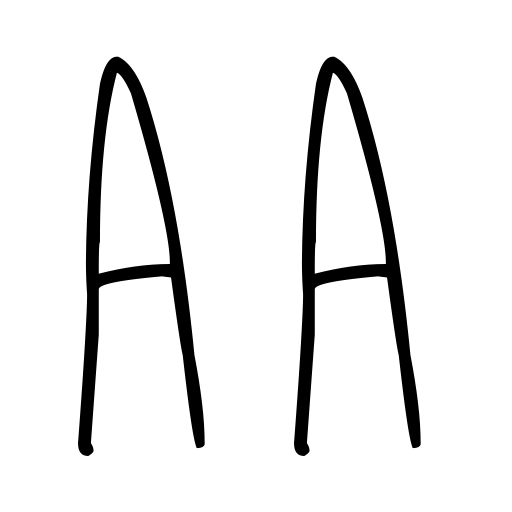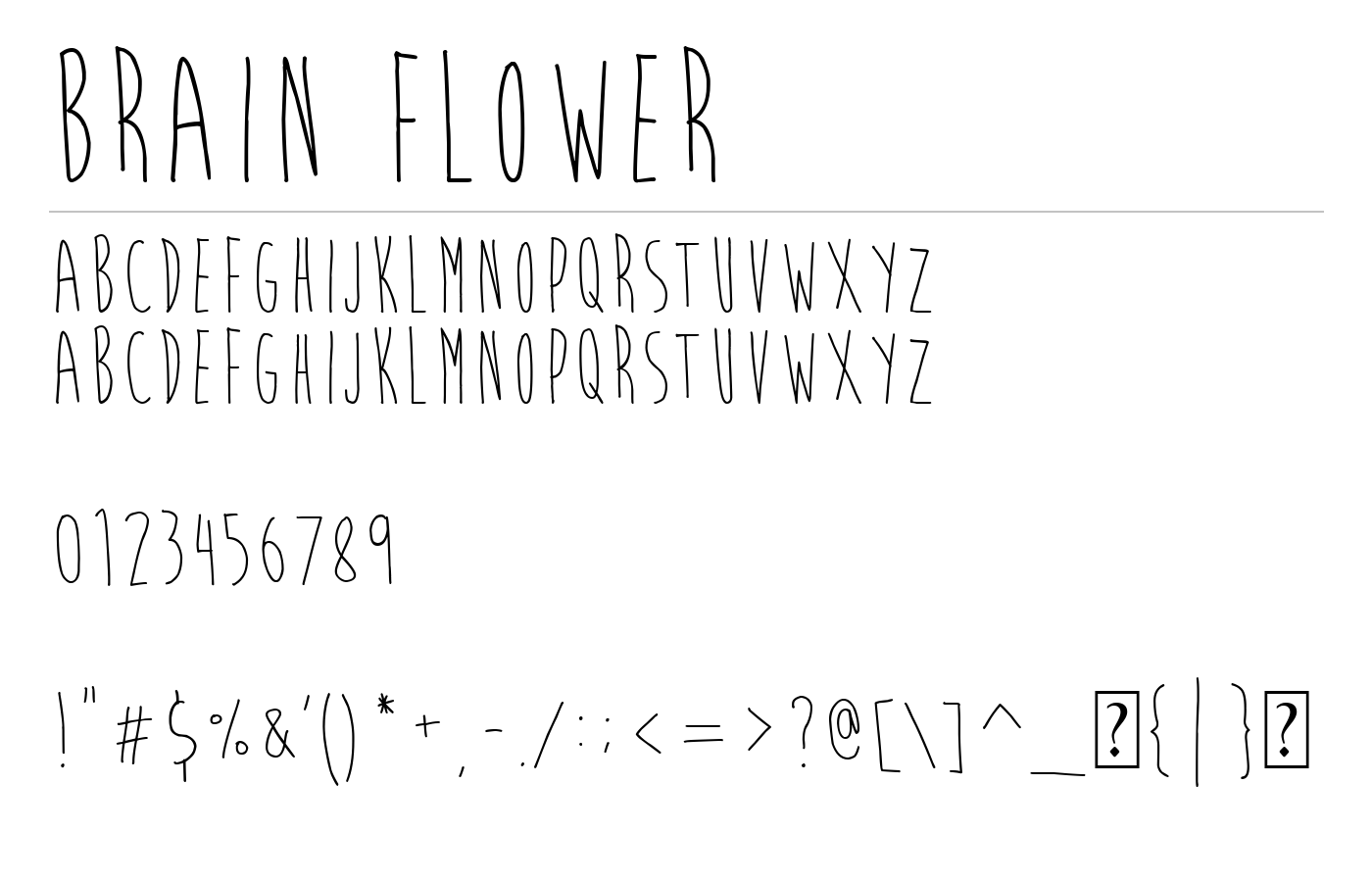
Brain Flower is a tall, narrow sans serif font with a hand-drawn, playful character. Its thin strokes and irregular letterforms give it a casual, whimsical feel, making it ideal for creative projects, children’s designs, and informal branding where a quirky, approachable mood is desired. This font works best in headlines and display uses where its unique personality can stand out.
Brain Flower Font
About Brain Flower Font
| Font family | Brain Flower Font |
| Designer | Denise Bentulan |